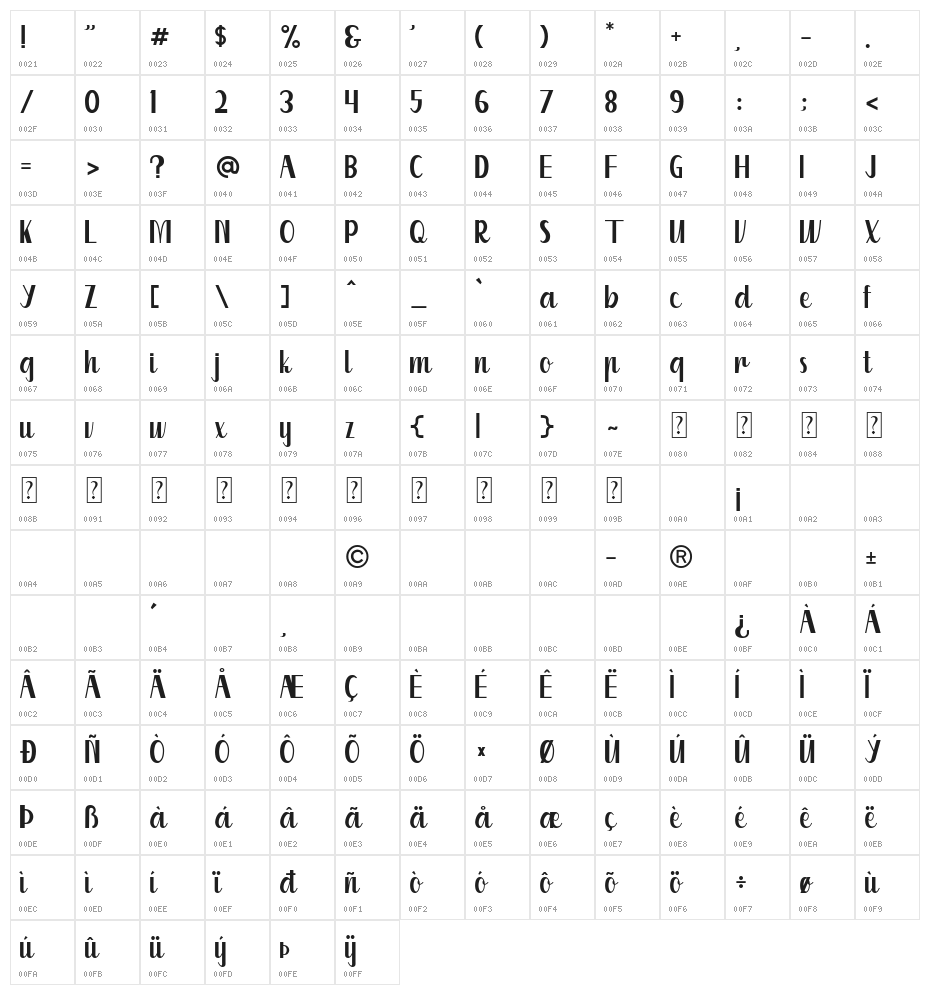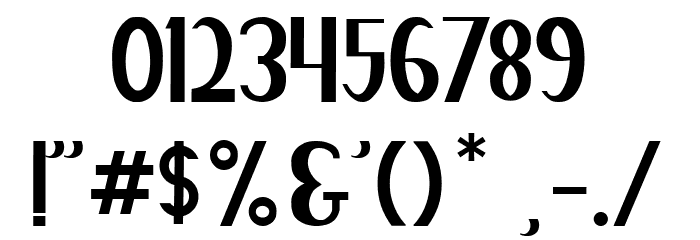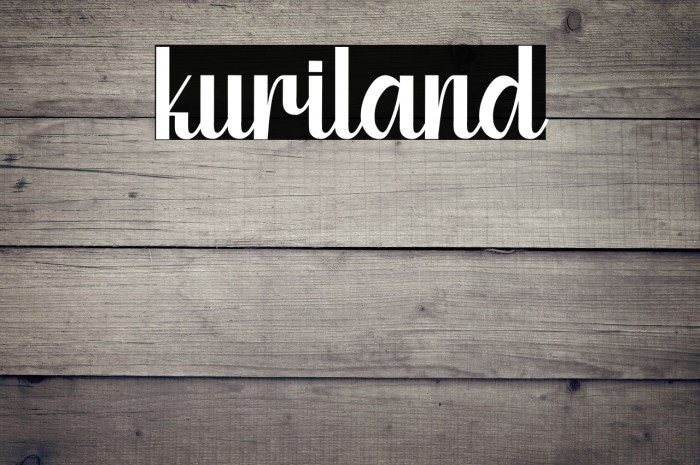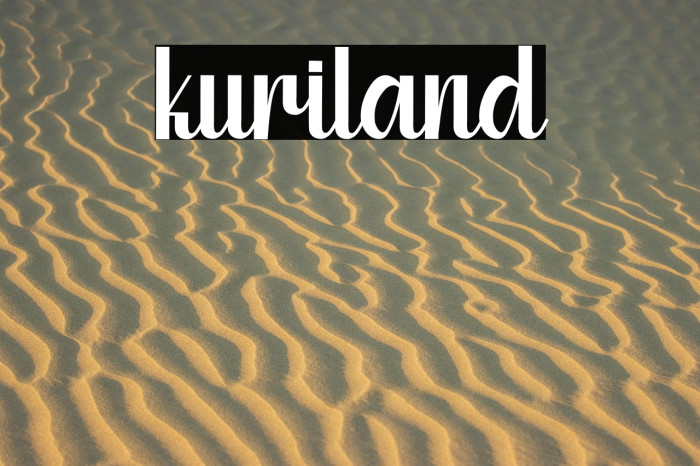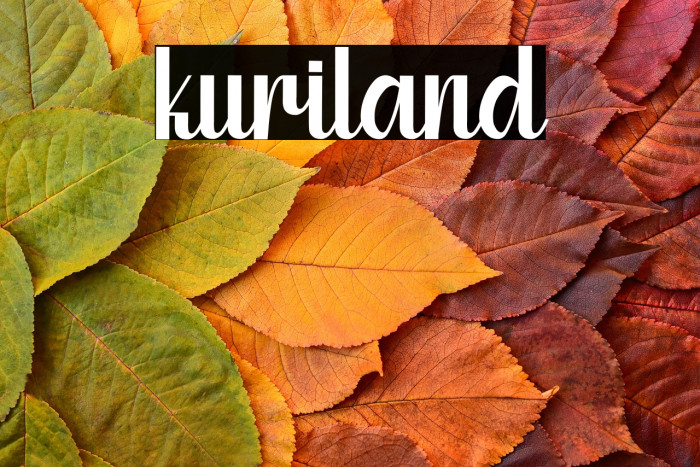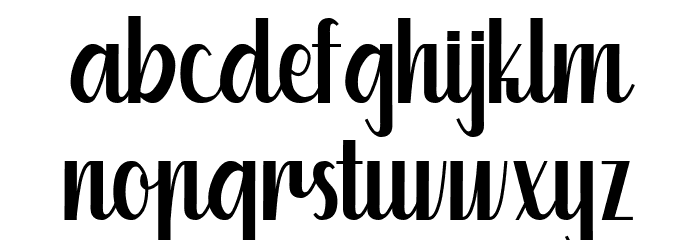
kuriland Font
kuriland Description
This font features a unique blend of modern and decorative styles, characterized by its tall, narrow letters with a slight slant. The uppercase letters are bold and striking, while the lowercase letters maintain a consistent flow with subtle curves. The numerals are distinct and easy to read, complementing the overall aesthetic. Special characters are creatively designed, adding a playful touch to the font. The combination of thick and thin strokes provides a moderate contrast, enhancing readability while maintaining an artistic flair. This font is perfect for projects that require a touch of elegance and creativity.
| Overall Style | Modern, Decorative |
| Proposed Projects | Ideal for branding, posters, invitations, and creative design projects. |